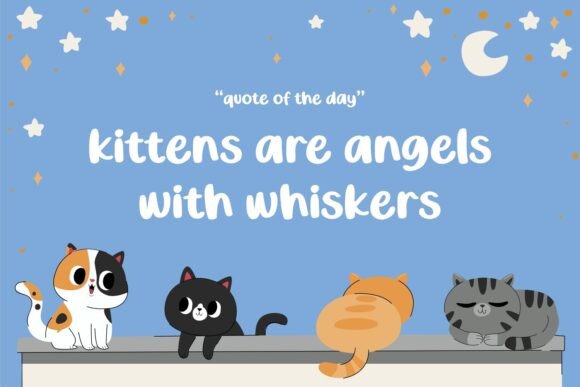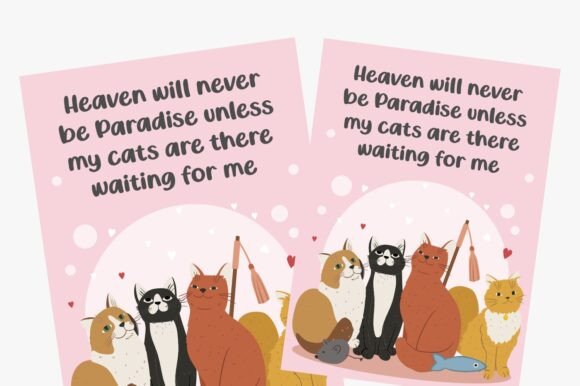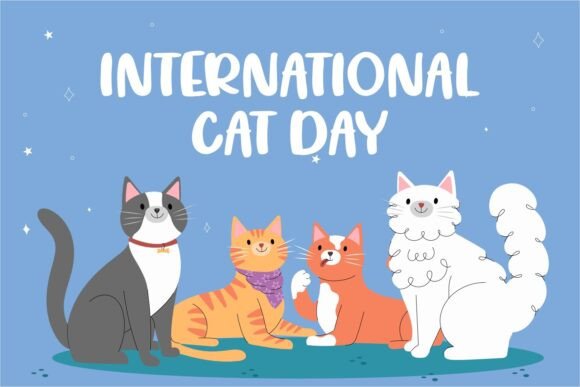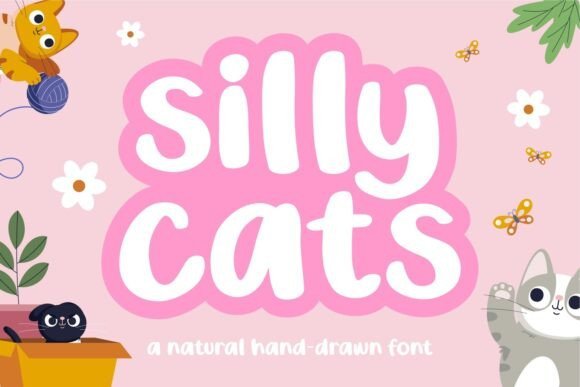
Introduction to Silly Cats Font
Introducing Silly Cats, the purr-fectly playful hand-drawn font that’s as fun and quirky as a curious kitten.
With its bubbly, rounded letters and whimsical feel, this font is ideal for creating joyful designs that make people smile Whether you’re working on pet-themed projects, invitations, or playful branding, Silly Cats will add a touch of mischief and charm to your work.
Silly Cats Font offers exceptional quality and versatility, making it a valuable addition to your design toolkit. Whether you’re creating for personal projects or commercial use, Silly Cats Font delivers professional results.